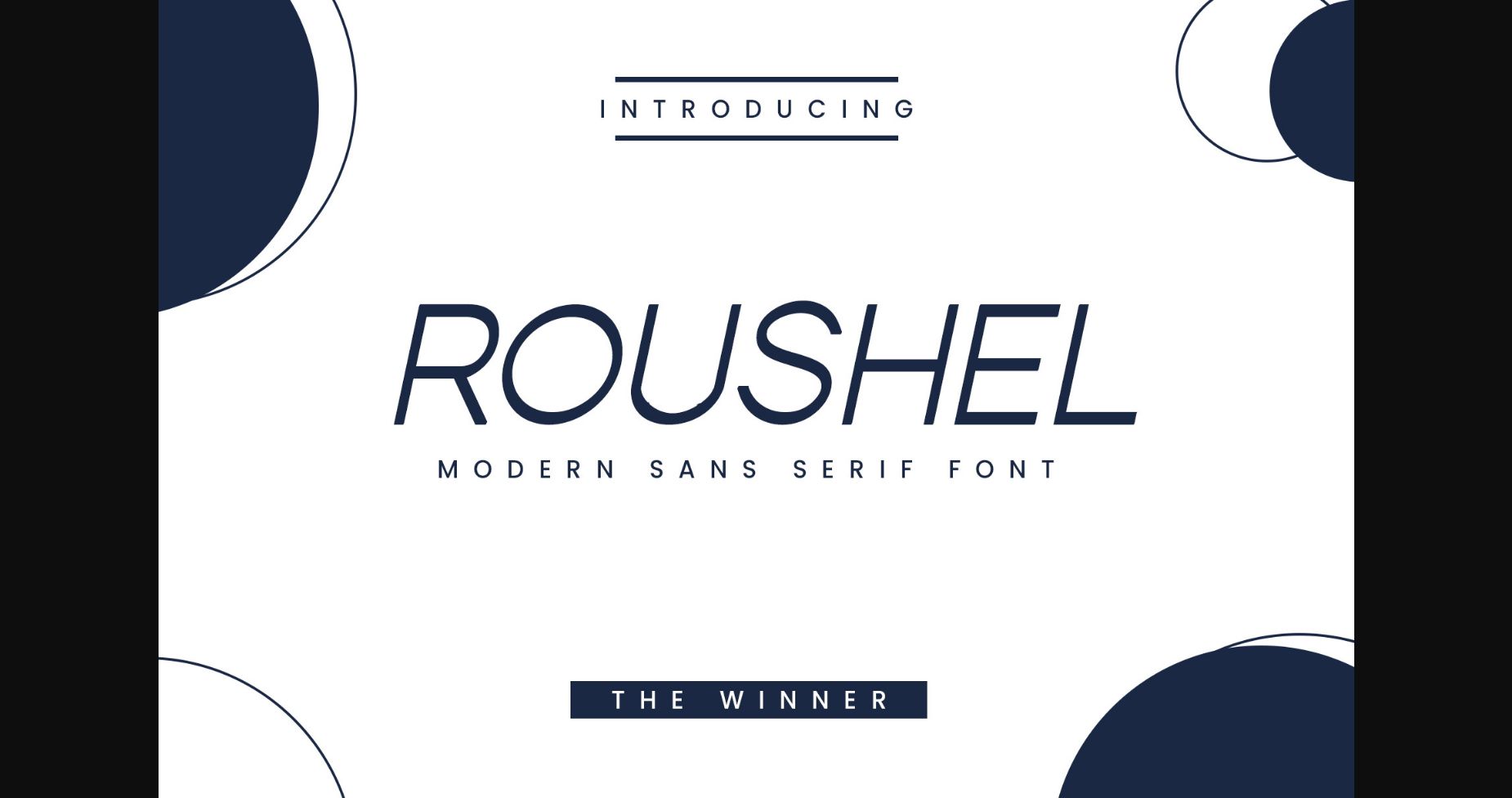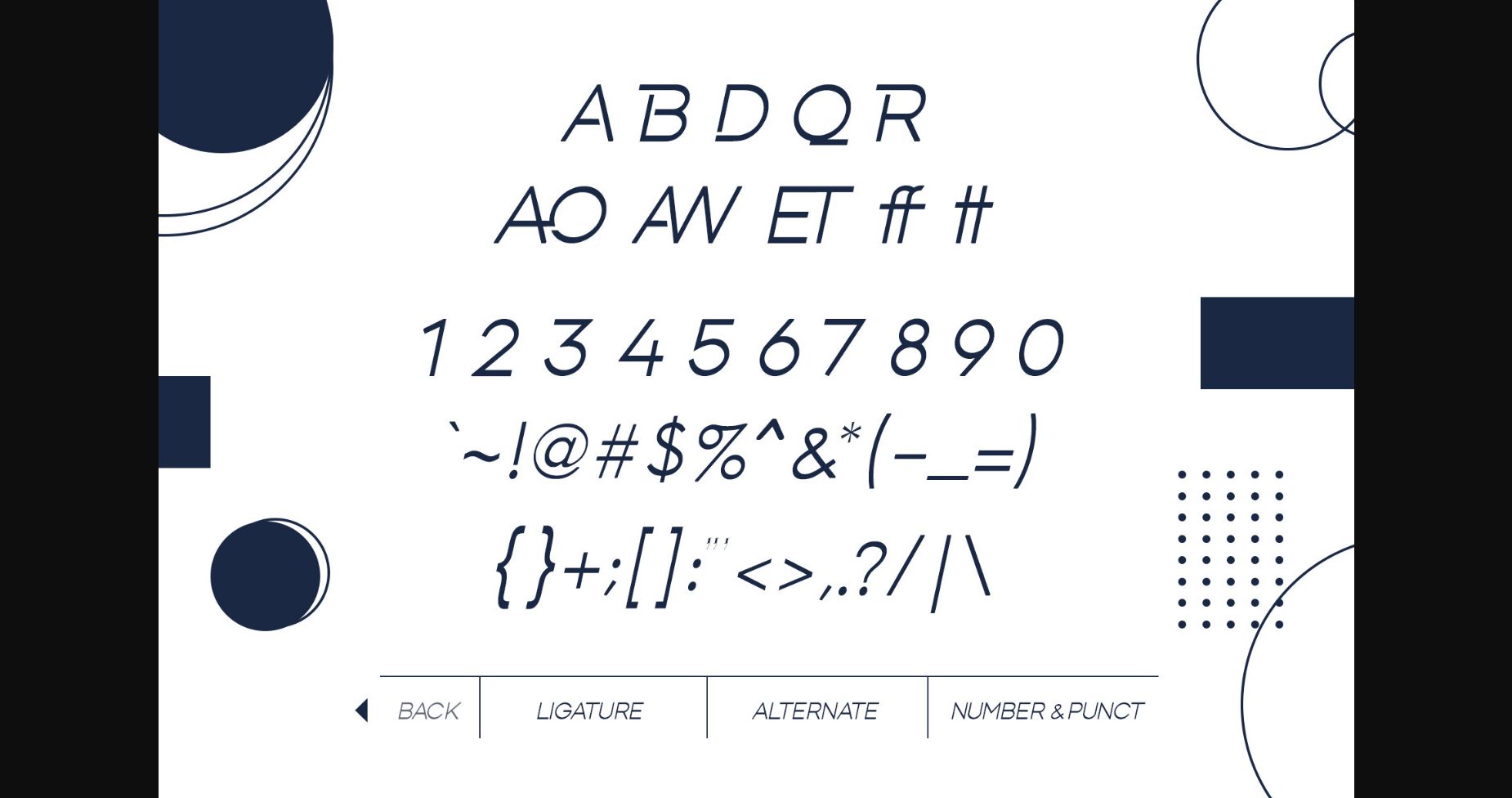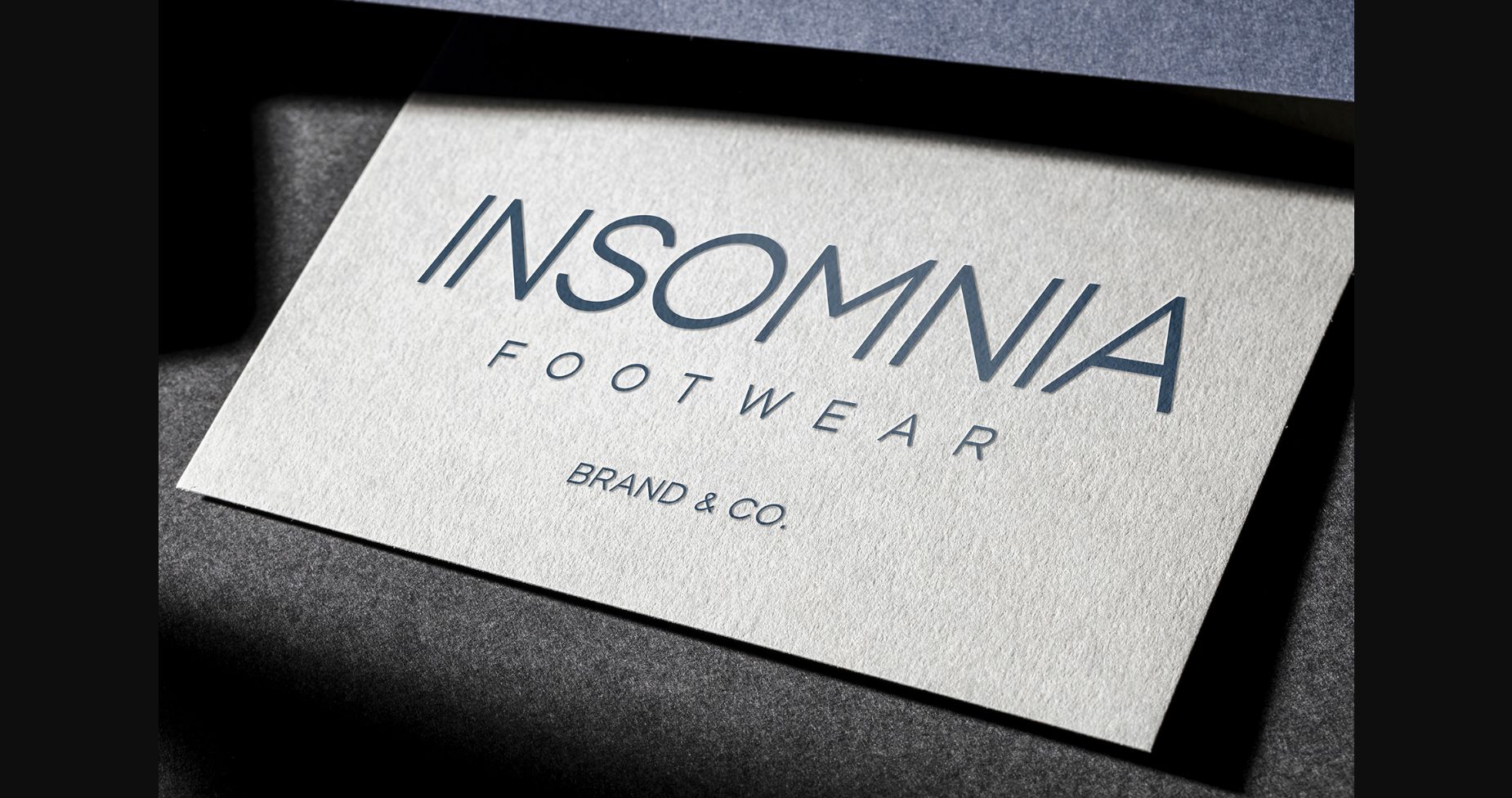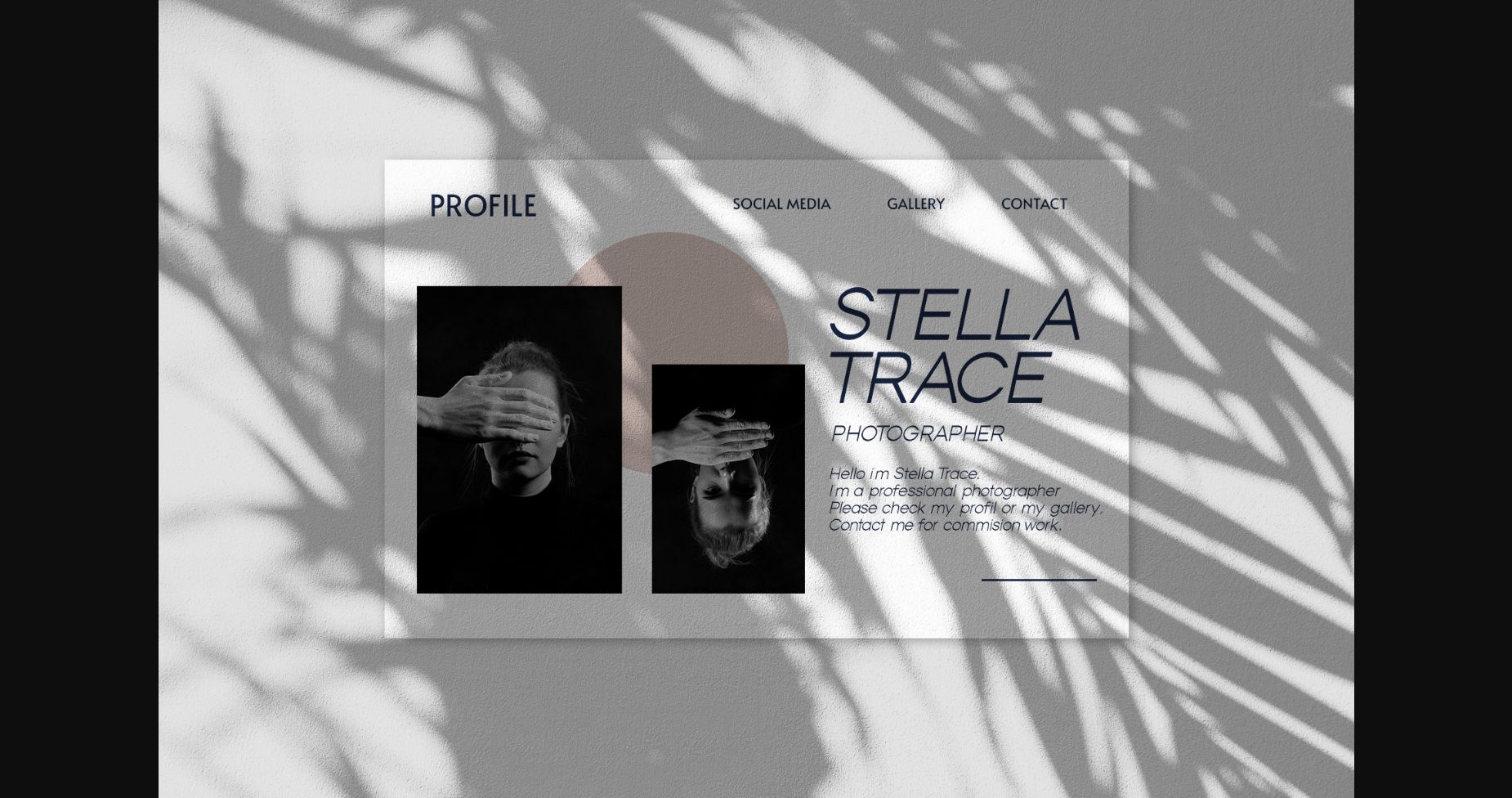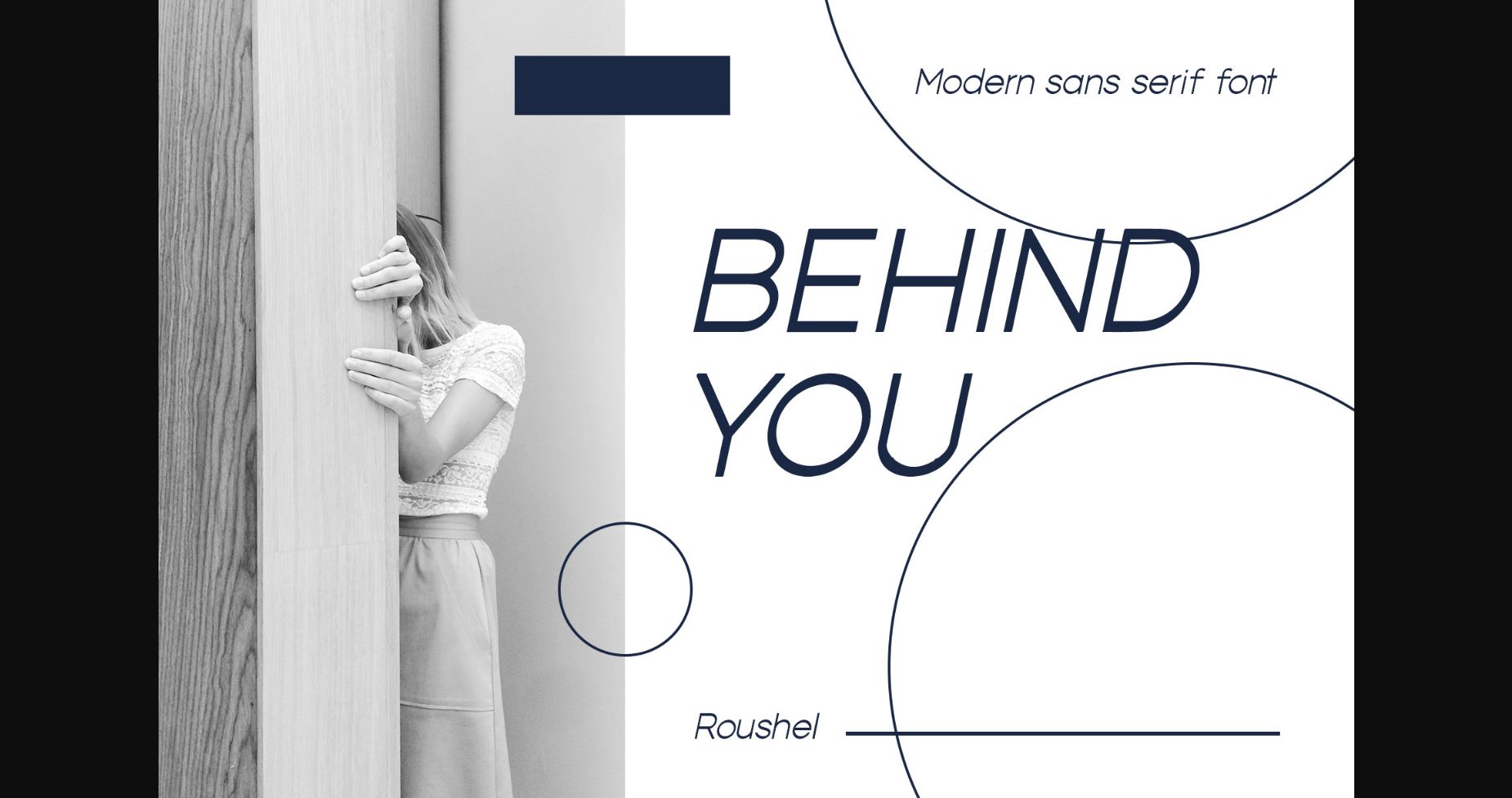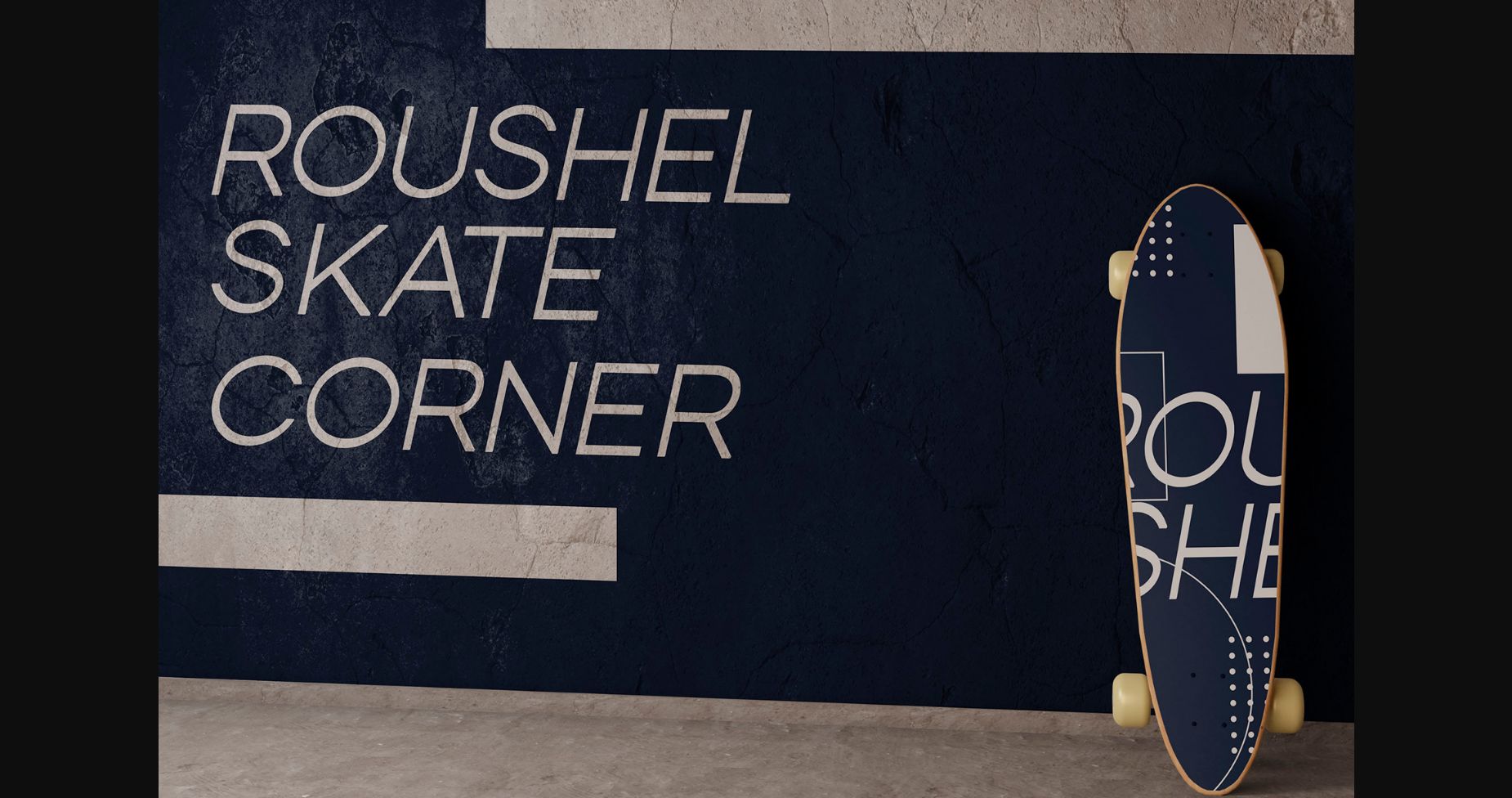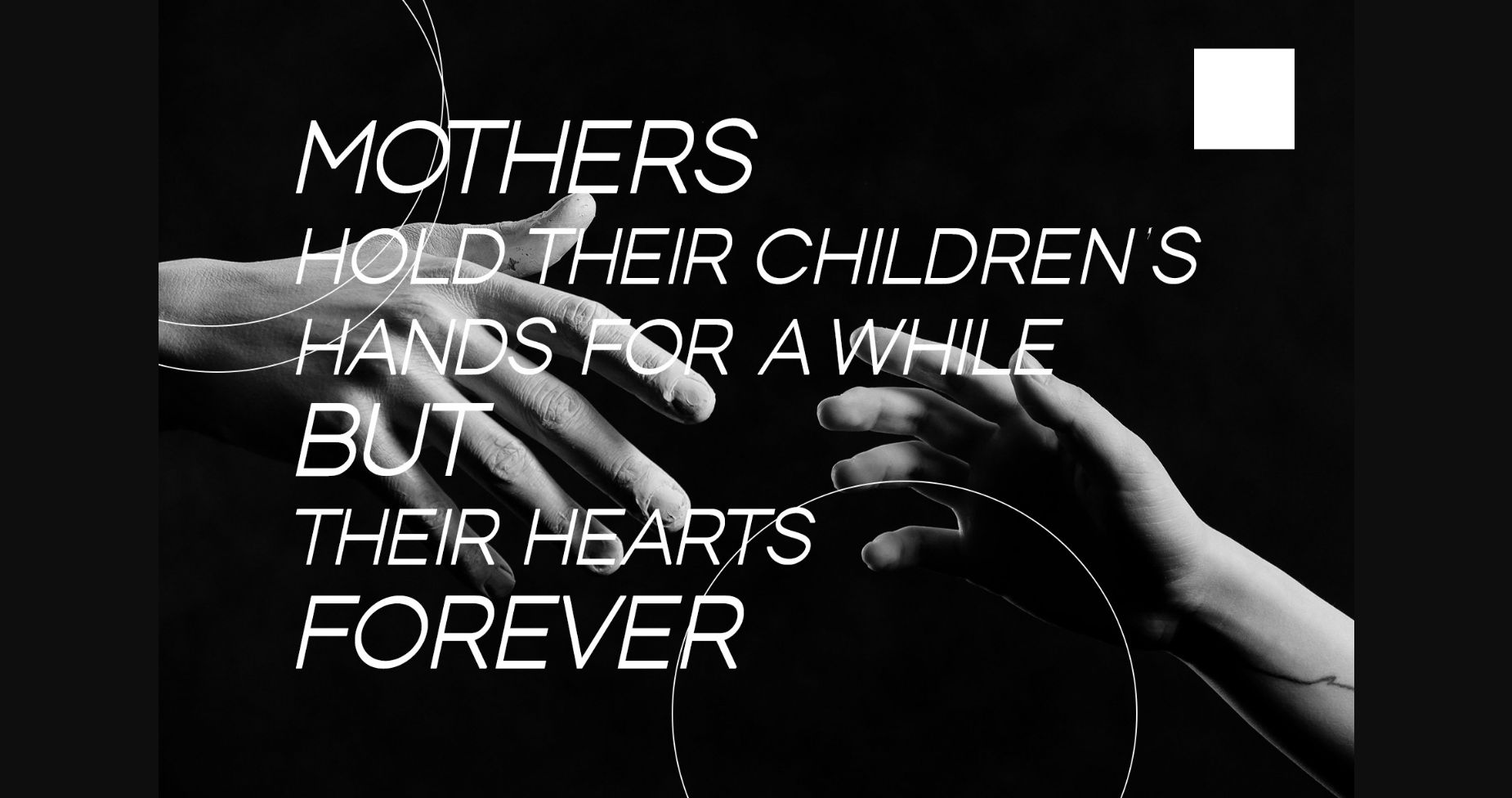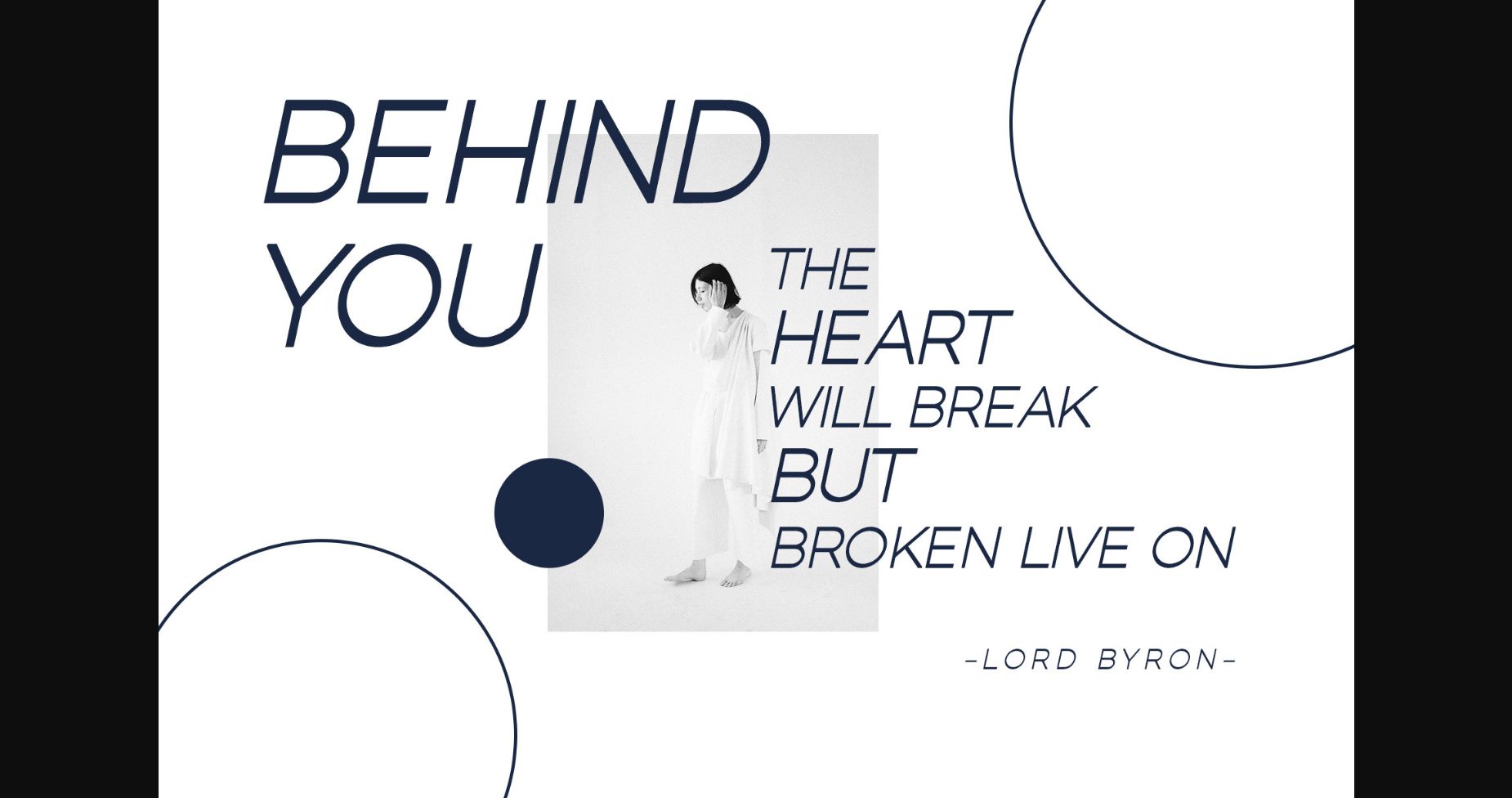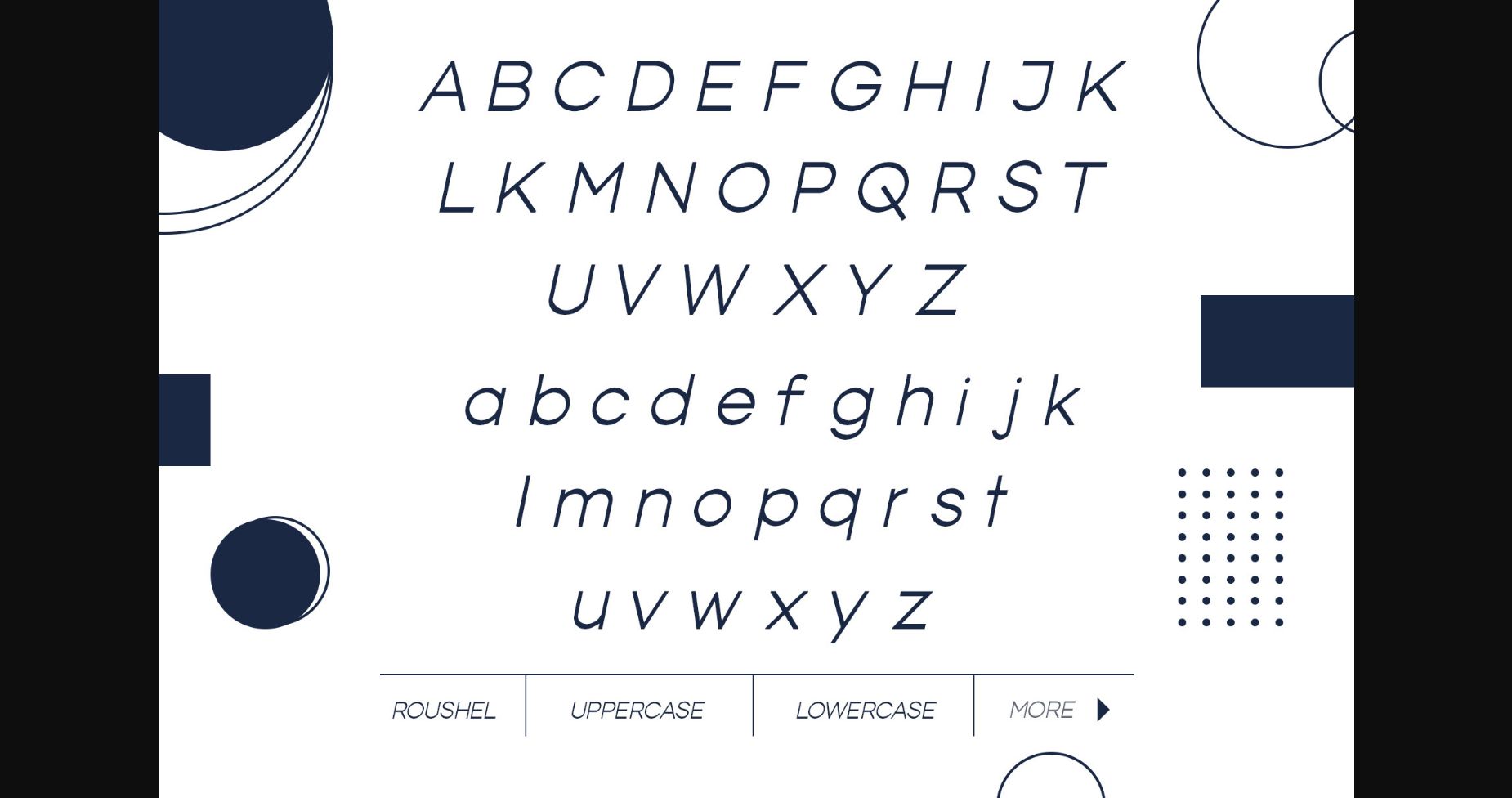
HomeSans Serif FontsRoushel Font Sans Serif Fonts Roushel Font FacebookXPinterestWhatsApp 1 of 11 ... Roushel Font Poster 2... Roushel Font Poster 3... Roushel Font Poster 4... Roushel Font Poster 5... Roushel Font Poster 6... Roushel Font Poster 7... Roushel Font Poster 8... Roushel Font Poster 9... Roushel Font Poster 10... Roushel Font Poster 11... About Roushel Font Roushel is a minimal and neat sans serif font. It can easily be matched to an incredibly large set of projects, so add it to your creative ideas and notice how it makes them stand out! DOWNLOAD NOW People also explored Toploftily Font Mallika Font Izzie Font Monogram Font Forest Bella Canvas 3001 T Shirt Mockup Callista Font Father & Mother Font Depto Font Campaigh Font 393 0 TagsRoushelRoushel Font Previous articleGaramount FontNext articleThe Family Home Font LEAVE A REPLY Cancel reply Comment: Please enter your comment! Name:* Please enter your name here Email:* You have entered an incorrect email address! Please enter your email address here Website: Save my name, email, and website in this browser for the next time I comment. Personal Use Free Round Geometric Personal Use Free Read more about this font Hallo Betty Personal Use Free Read more about this font Creativo Personal Use Free Read more about this font Latifah Personal Use Free Read more about this font BLOG Using Fonts in Digital Marketing: Tips to Strengthen Your Brand Identity In the realm of digital marketing, every visual element plays a crucial role in shaping a brand's identity, and fonts are no exception. The... Free Fonts Risk: Why Free Fonts Can Be Dangerous for Designers How to Cut Any Font on Cricut: Convert a Font to SVG (Free) Top 10 Handwritten Fonts That Elevate Your Designs